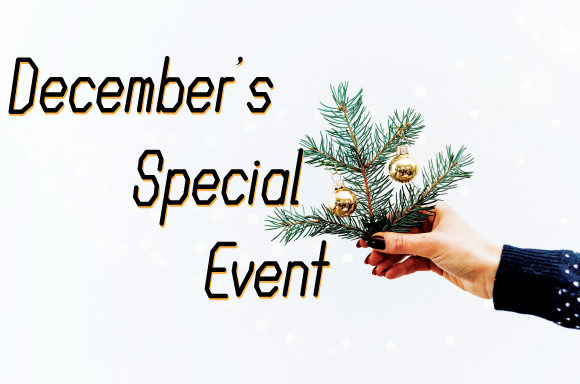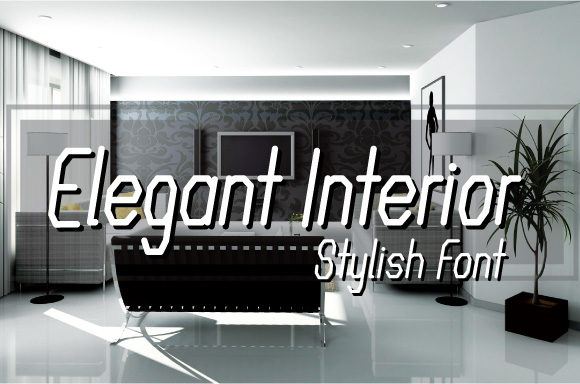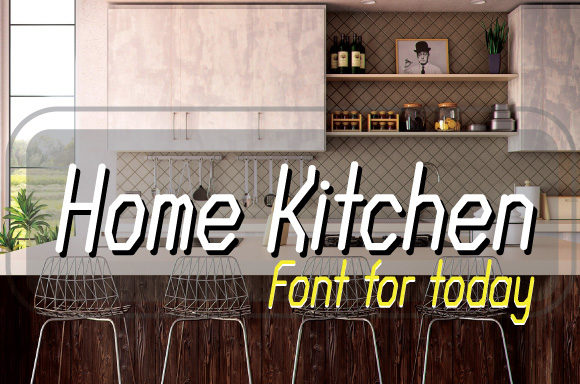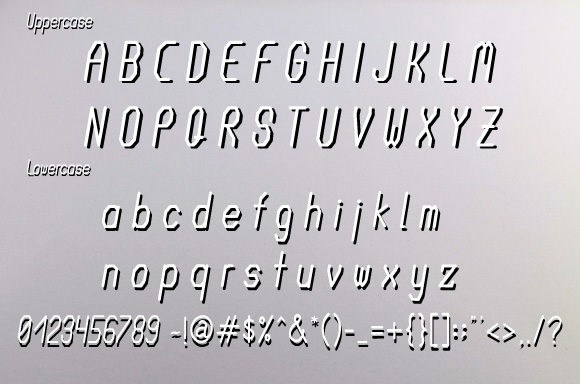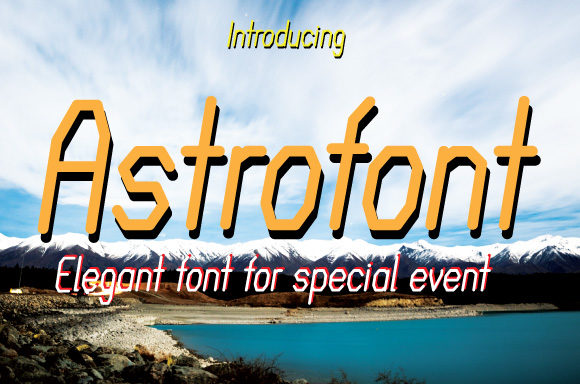
Astro Font: Elevate Your Designs with a Stylish and Clean Sans Serif Font
Are you a designer or crafter looking for a font that can elevate your brand, product, or creative project? Look no further than Astro Font, a stylish and clean sans serif font that’s perfect for a wide range of applications. In this article, we’ll explore the features and benefits of Astro Font, and show you how it can help you take your designs to the next level.
What is Astro Font?
Astro Font is a modern sans serif font that’s designed to be both stylish and versatile. Its clean lines and simple shapes make it easy to read and highly legible, while its sleek and sophisticated aesthetic ensures that it will add a touch of elegance to any design. Whether you’re working on a branding project, creating a product label, or designing a poster or flyer, Astro Font is a great choice.
Key Features of Astro Font
So what makes Astro Font so special? Here are just a few of its key features:
- Clean and simple design: Astro Font has a clean and simple design that’s easy on the eyes. Its sans serif lines and rounded shapes make it highly legible, even at small sizes.
- Stylish and sophisticated: Despite its simplicity, Astro Font has a stylish and sophisticated aesthetic that’s perfect for high-end brands and creative projects.
- Versatile: Astro Font is a versatile font that can be used for a wide range of applications, from branding and packaging to posters and flyers.
- Easy to read: Astro Font is highly legible, even at small sizes, making it perfect for body text and captions.
Use Cases for Astro Font
So what can you use Astro Font for? The possibilities are endless, but here are a few ideas to get you started:
- Branding: Use Astro Font as a logo font or for body text to create a cohesive and stylish brand identity.
- Product packaging: Add a touch of elegance to your product packaging with Astro Font, perfect for labels, tags, and instructions.
- Invitations: Create stylish and sophisticated invitations for weddings, parties, and other events with Astro Font.
- Quotations: Use Astro Font to add a touch of elegance to your quotations and testimonials.
- T-shirts and apparel: Create stylish and eye-catching designs for t-shirts and other apparel with Astro Font.
- Posters and flyers: Use Astro Font to create eye-catching posters and flyers that grab attention and communicate your message clearly.
Why Choose Astro Font?
So why should you choose Astro Font for your next design project? Here are just a few reasons:
- Unique and stylish: Astro Font has a unique and stylish aesthetic that’s sure to set your design apart from the crowd.
- Highly legible: Astro Font is highly legible, even at small sizes, making it perfect for body text and captions.
- Versatile: Astro Font can be used for a wide range of applications, from branding and packaging to posters and flyers.
In conclusion, Astro Font is a stylish and clean sans serif font that’s perfect for designers and crafters looking to elevate their brand, product, or creative project. With its clean lines, simple shapes, and highly legible design, Astro Font is a versatile font that can be used for a wide range of applications. Whether you’re working on a branding project, creating a product label, or designing a poster or flyer, Astro Font is a great choice. So why wait? Download Astro Font today and take your designs to the next level!